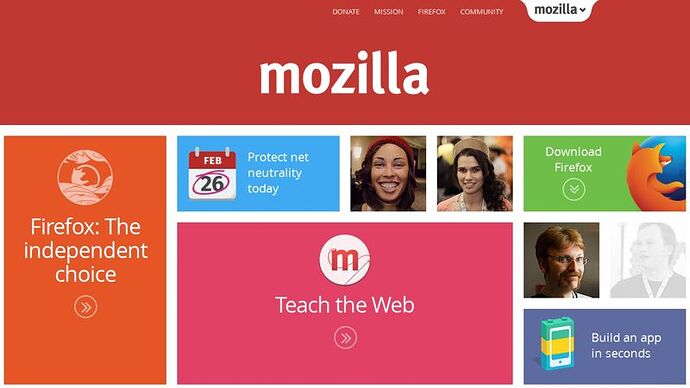
Finding the right font for your project can be a challenge — especially if you are not a dedicated ‘type nerd’. This task becomes even more difficult if you decide to limit your selection to free fonts.
Today we are going to present a selection of free and open fonts with which you'll rarely go wrong. The following fonts are all licensed under either the Apache License, or the SIL Open Font License.
Open Sans
As the unofficial flagship font of open fonts, Open Sans has gained popularity since it was introduced in 2011 by Google. Designed by Steve Matteson, it shares many characteristics with Droid Sans, except it features wider characters and italic variants.
As an open font with 897 characters, it has enormous localization potential, and therefore is very popular with various language locales, apart latin. Open Sans offers 5 different weights (300 Light, 400 Normal, Semi-Bold 600, Bold 700 and Extra Bold 800) and each one features an italic version.
Additionally, the separate Open Sans Condensed font is available in 3 width variations. Open Sans is optimized for print, web, and mobile interfaces, and has excellent legibility characteristics in its letterforms.
Open Sans has been widely used in Google's print and web advertisements. An example is the Google Open Source Blog. You can encounter Open Sans also on Google Maps.
Further, WordPress.com also switched from from Helvetica/Arial to Open Sans in October 2012, after having it implemented in its WordPress.org Content Management System.
Similar to WordPress, in terms of aligning their brand values with their assets, Mozilla also took the leap into Open Sans after latter was released in 2011. You can see Open Sans almost anywhere where Mozilla at present, even unofficial community sites. This open font has gradually replaced Erik Spiekermann's FF Meta, which is a proprietary font. Let's say Open Sans came along at just the right time.
League Gothic
League Gothic is a revival of an old classic, based on Alternate Gothic #1, originally designed by Morris Fuller Benton for the America Type Founders Company in 1903. The company went bankrupt in 1993, and since the original typeface was created before 1923, the typeface is now in the public domain.
League Gothic is licensed under the SIL Open Font license and available in Regular and Condensed, as well their Italic alternations.
This is another example where an open font has been used well while aligning perfectly with the views of the organization using it, is the Open Society Foundation (the name says it all, right?).
League Gothic has been used here for various headers, giving the website an elegant look reminiscent of a refined newspaper — a well designed header area emphasizes this theme.
A great ‘one pager’ where League Gothic really works well is Appliance Tec Ltd.
Roboto
Roboto is the successor to Droid Sans, the system font for Google's Android operating system (well technically it's not Google's, as Android is open source, but that's another matter).
The font is licensed under the Apache license and the entire font family was officially made available for free download on January 12, 2012, on the newly launched Android Design website. The family includes Thin, Light, Regular, Medium, Bold and Black weights with matching oblique styles. It also features condensed styles in Light, Regular and Bold, also with matching oblique designs.
Together with Open Sans, Roboto makes up the flagship fonts of Google. Check out the Material Design Styleguide:
It's noticeable that Roboto is very popular for one page websites and especially startups. An example here is the website of StandupMail:
As Styx said ‘Domo Arigato, Mr Roboto‘.
Lato
Lato is a sans serif typeface family designed in Summer 2010 by Warsaw-based designer Łukasz Dziedzic (“Lato” means “Summer” in Polish). In December 2010 the Lato family was published under the SIL Open Font License by his foundry tyPoland, with support from Google.
In 2013 – 2014, the family was greatly extended to cover over 3000 glyphs per style. The Lato 2.010 family now supports 100+ Latin-based languages, 50+ Cyrillic-based languages, as well as Greek and IPA phonetics. In the process, the metrics and kerning of the family have been revised and four additional weights were created.
A great example where Lato (Light in this case) has been used, is Frank Chimero's "What Screens Want" page. In this case it contributes greatly to the storytelling the website focuses on.
Another interesting website where Lato is very effectively used is Designer checklist advices.
The landing page of the upcoming secure messenger Hemlis, uses Lato as the primary font also.